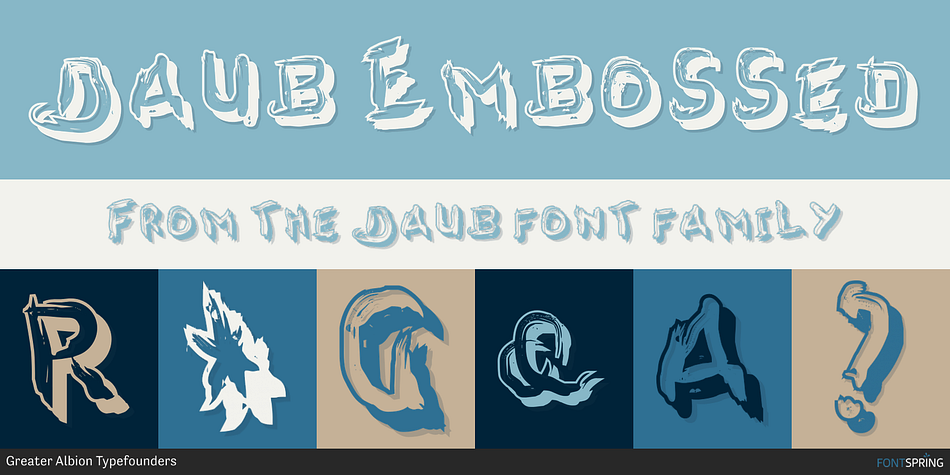
Daub Embossed
Daub is a grunge font family. This typeface has two styles and was published by Greater Albion Typefounders.
Daub captures the look of old-style graffiti-it
Daub captures the look of old-style graffiti-it’s graffiti from the days when vandals used a brush and a pot of white distemper. Not an airbrush or aerosol in sight. Use Daub to give headings and posters that rough, hand brushed look. Add real grit and vigour to your work, with that old-style urban hard edge.